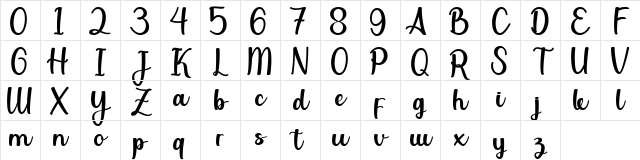
Bhellvast Reguler Free Font
Bhellvast Reguler
Foundry: Wallby Hand
Designer: Wallby Hand
Design Context for Bhellvast
Bhellvast is a composed and adaptable typeface that performs quietly and consistently across a wide range of design contexts.